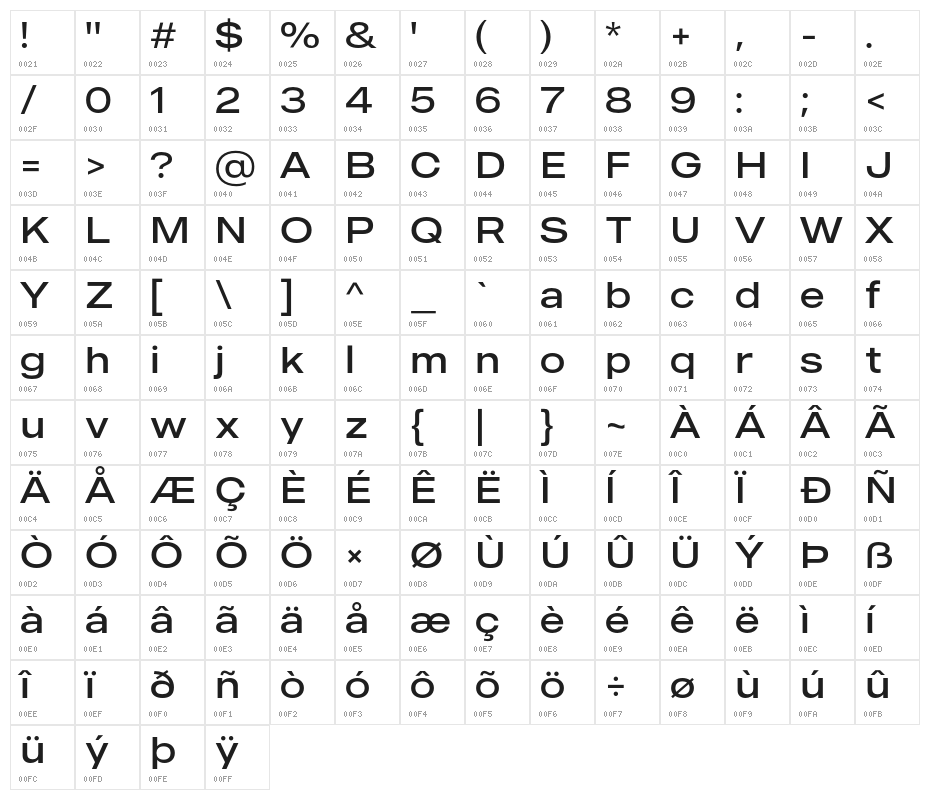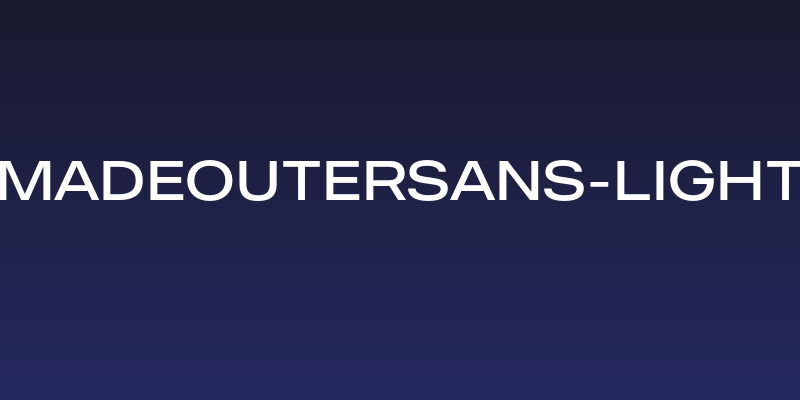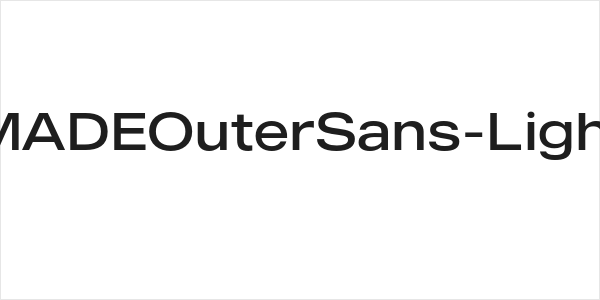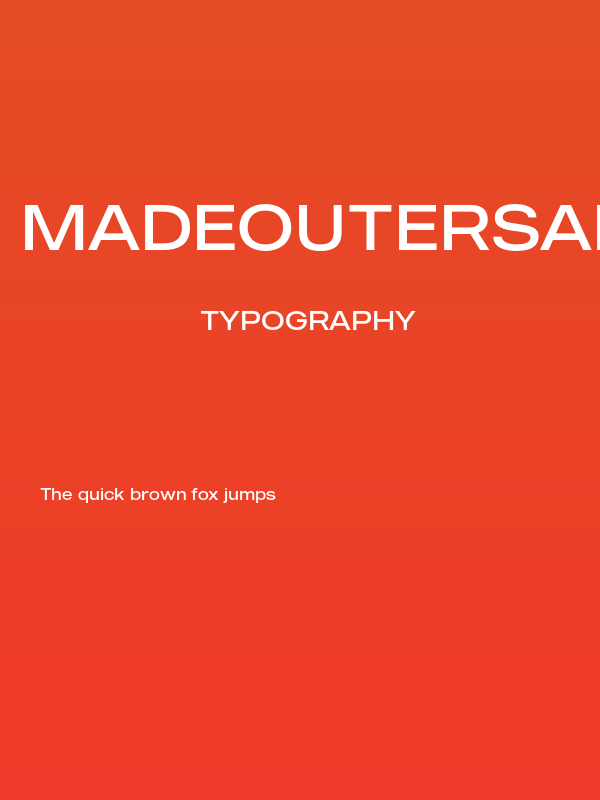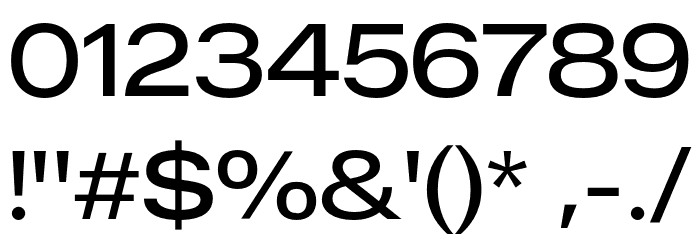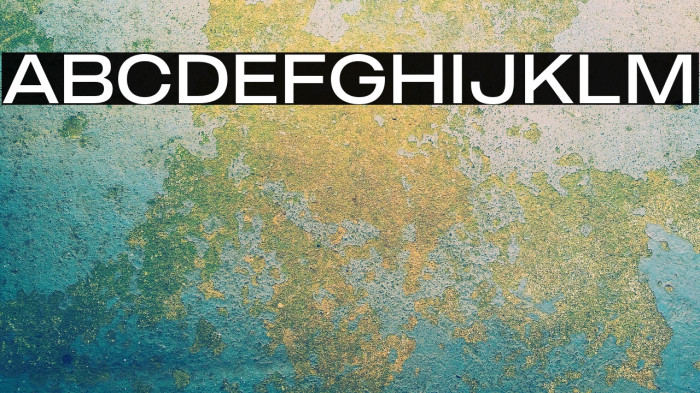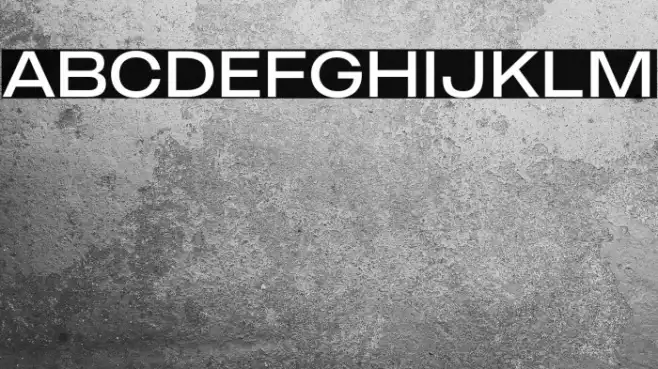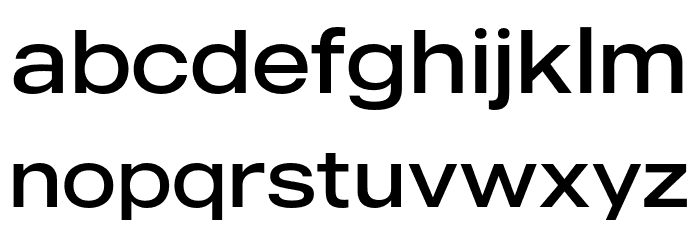
MADEOuterSans-Light Font
MADEOuterSans-Light Description
This font features a clean and modern sans-serif design with a light weight, offering a sleek and minimalist appearance. The characters are well-proportioned with a consistent stroke width, providing excellent legibility. The uppercase and lowercase letters are distinct, with rounded edges that soften the overall look. The numerals are clear and easy to read, and the special characters are designed to complement the alphabetic characters seamlessly. This font's simplicity and clarity make it versatile for various design applications.